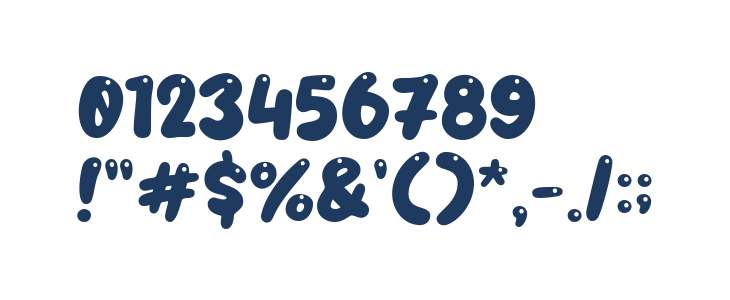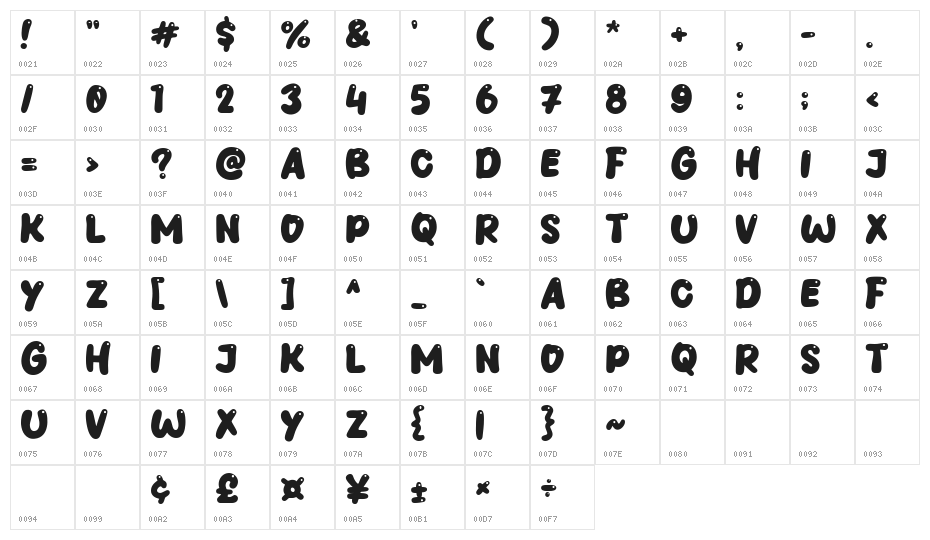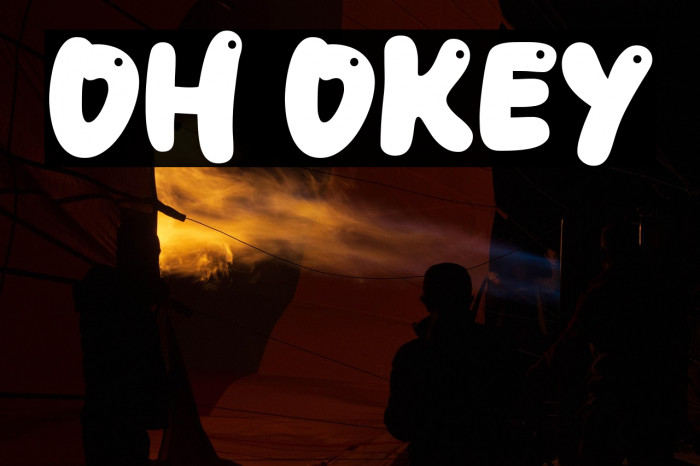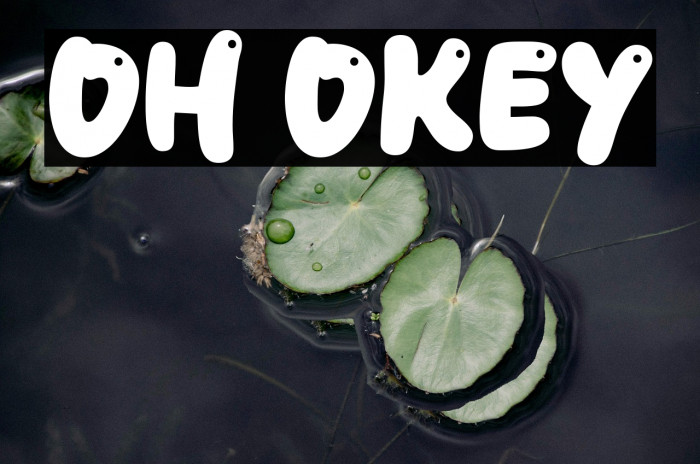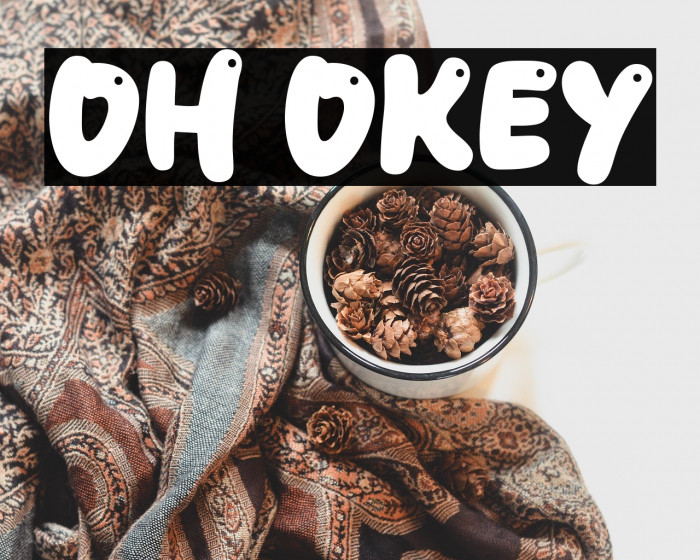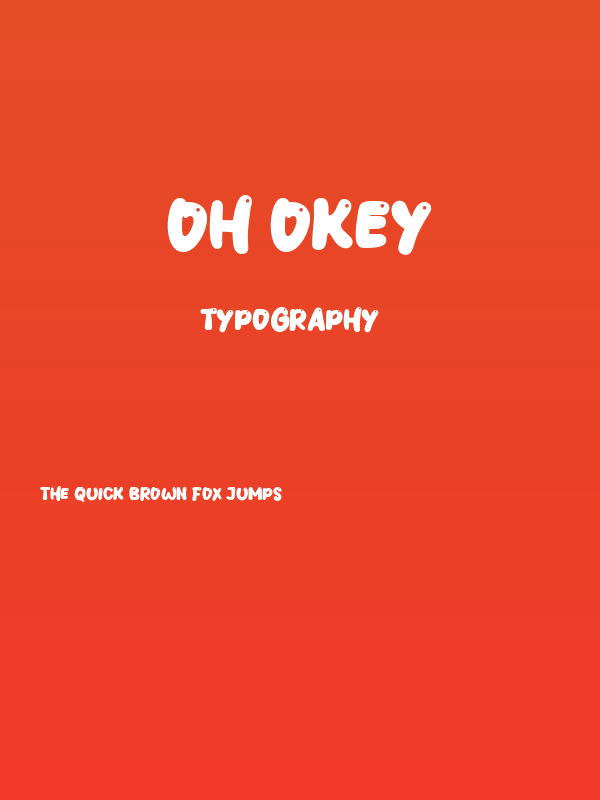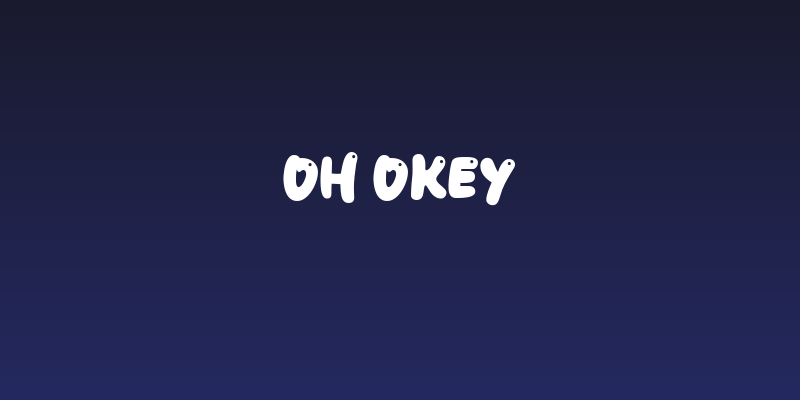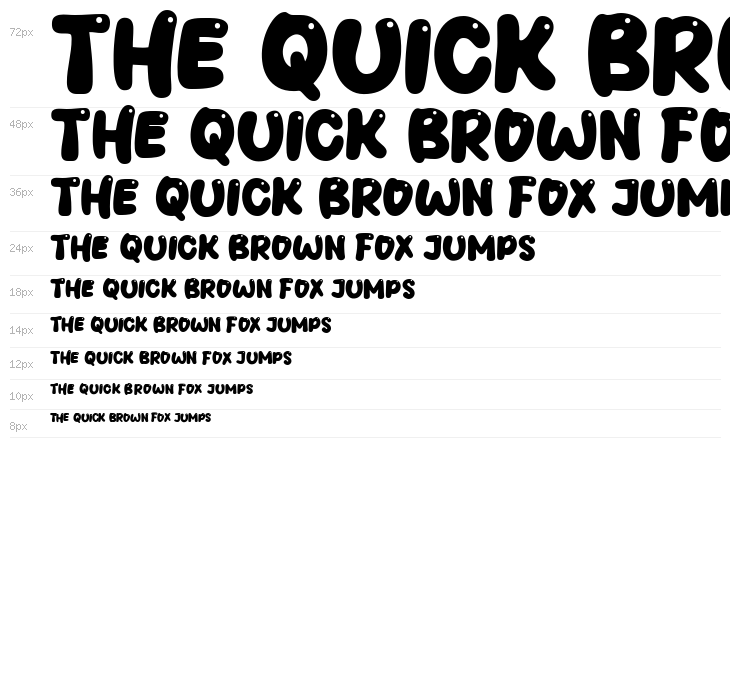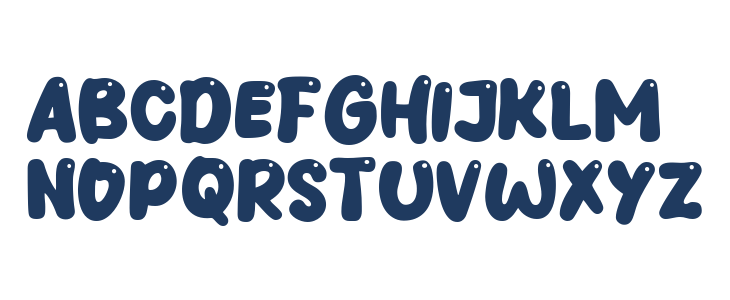
Oh Okey Font
Oh Okey Description
This playful and bold font features rounded, bubble-like characters with a whimsical touch. Each letter is thick and substantial, creating a sense of fun and energy. The characters are slightly irregular, adding to the font's charm and uniqueness. The font maintains a consistent weight throughout, with smooth curves and a friendly appearance. The numbers and special characters are equally bold and rounded, complementing the overall style. This font is ideal for projects that require a lively and engaging typeface.
Overall StylePlayful, Whimsical
Proposed ProjectsIdeal for children's books, playful branding, party invitations, and fun social media graphics.